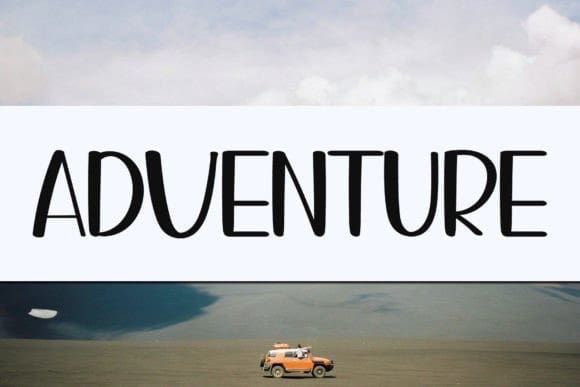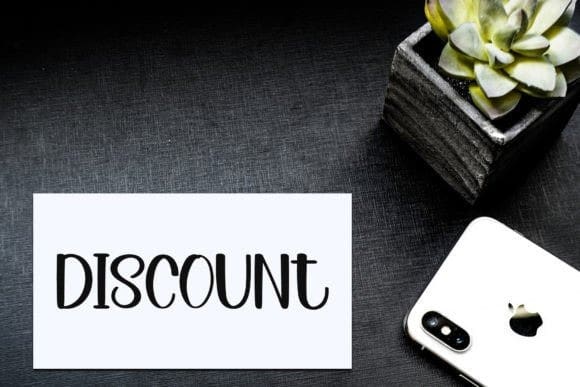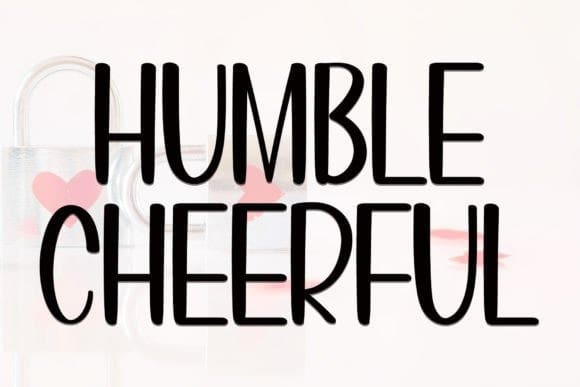
Humble Cheerful Font
Humble Cheerful Font is a beautiful and refined handwritten font. Classy and modern, it is perfect for logos, branding, invitations, stationery, wedding designs, social media posts, and much more!